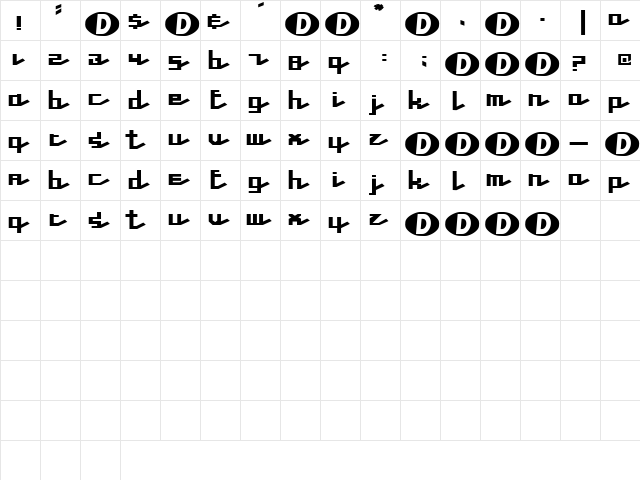
Satellites Regular Font Preview
Satellites Regular
Design Context for Satellites Typeface
Satellites is a composed and adaptable typeface that performs quietly and consistently across a wide range of design contexts.